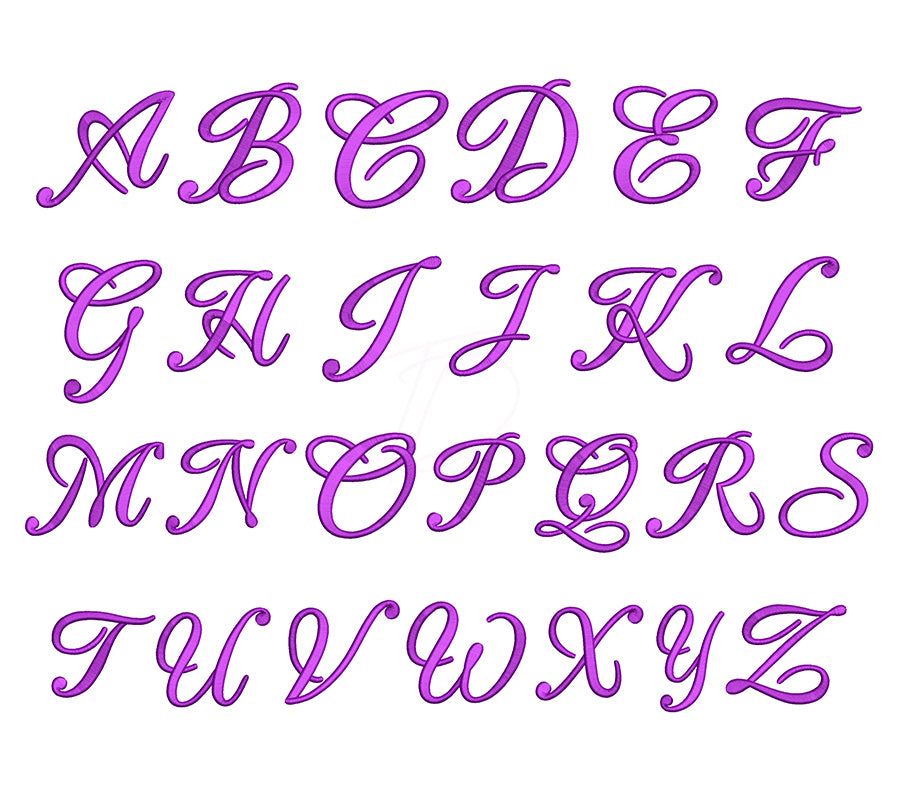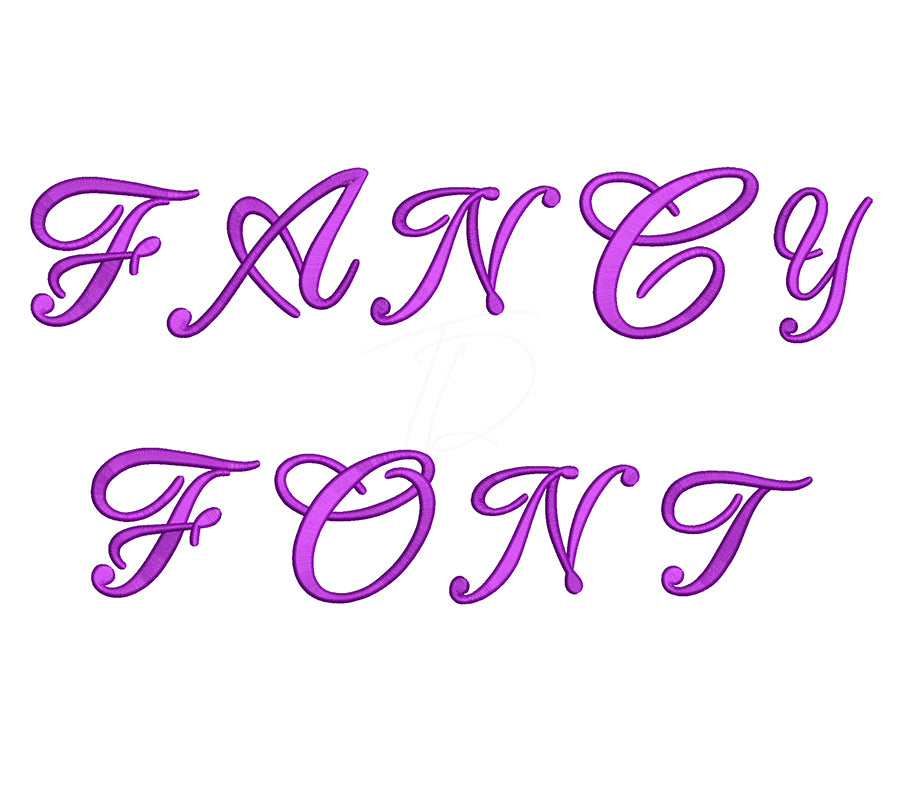
Fancy 3D Puff Embroidery Font
Add a touch of glamour to your embroidery projects with the Fancy 3D Puff Embroidery Font — a beautifully ornate, decorative font engineered specifically for 3D puff foam embroidery. 💎✨🧵
With its elegant swirls and refined letterforms, this font transforms any item into a luxurious, eye-catching piece. Perfect for bridal accessories, boutique apparel, monogrammed gifts, hats, and premium fashion items where style meets craftsmanship.